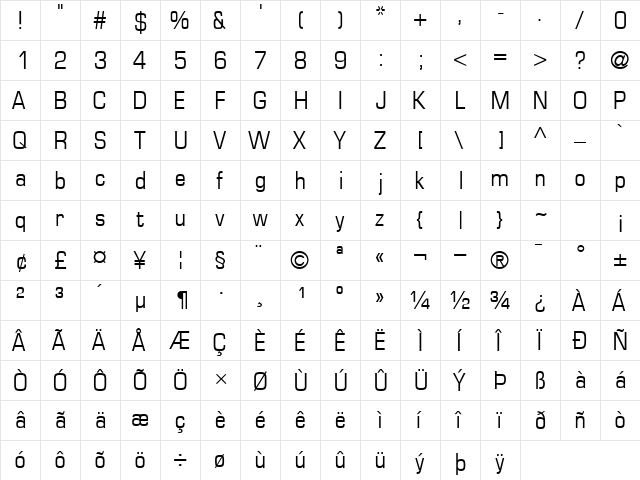
PalindromeCondSSK Regular
Design Context for PalindromeCondSSK Typeface
PalindromeCondSSK offers clean, dependable letterforms without strong stylistic allegiance, making it a practical choice for designers who need flexibility. Its narrow stance lets it pack a punch even in space-constrained designs.
Pro Tip: Pair PalindromeCondSSK with a font of contrasting weight or personality to build a more expressive typographic hierarchy.